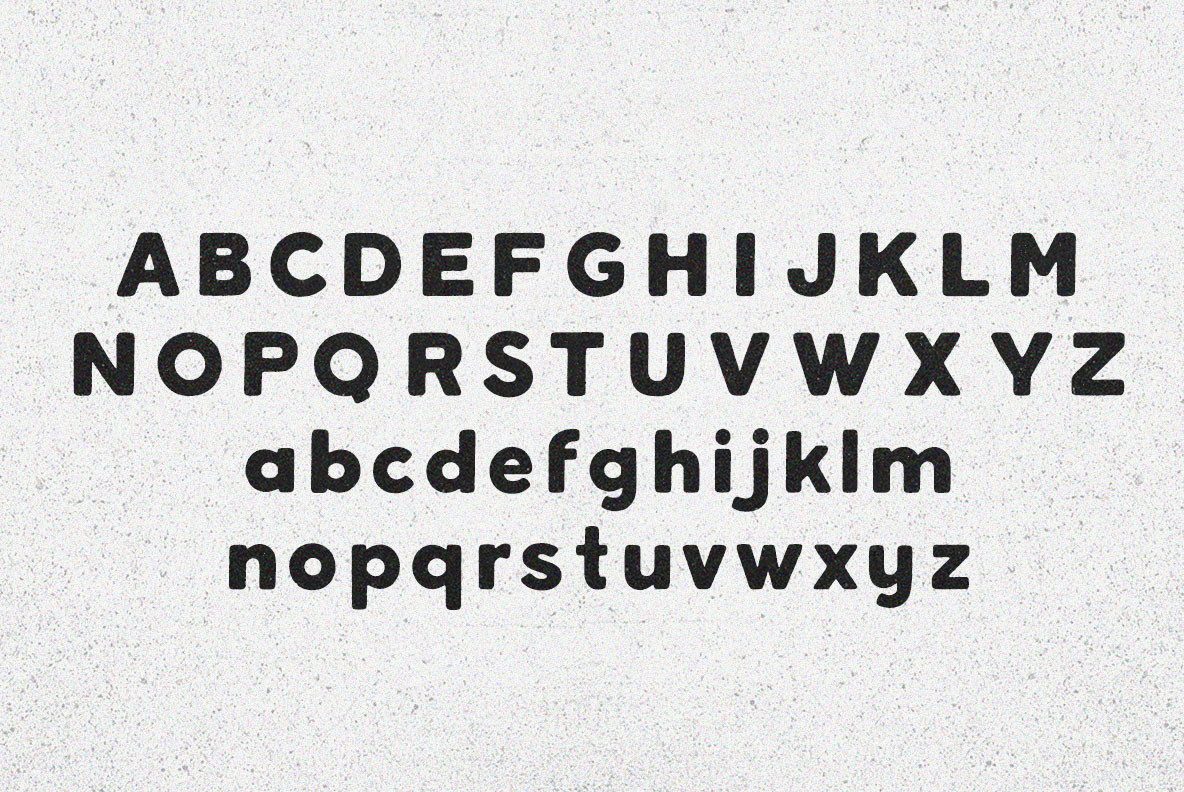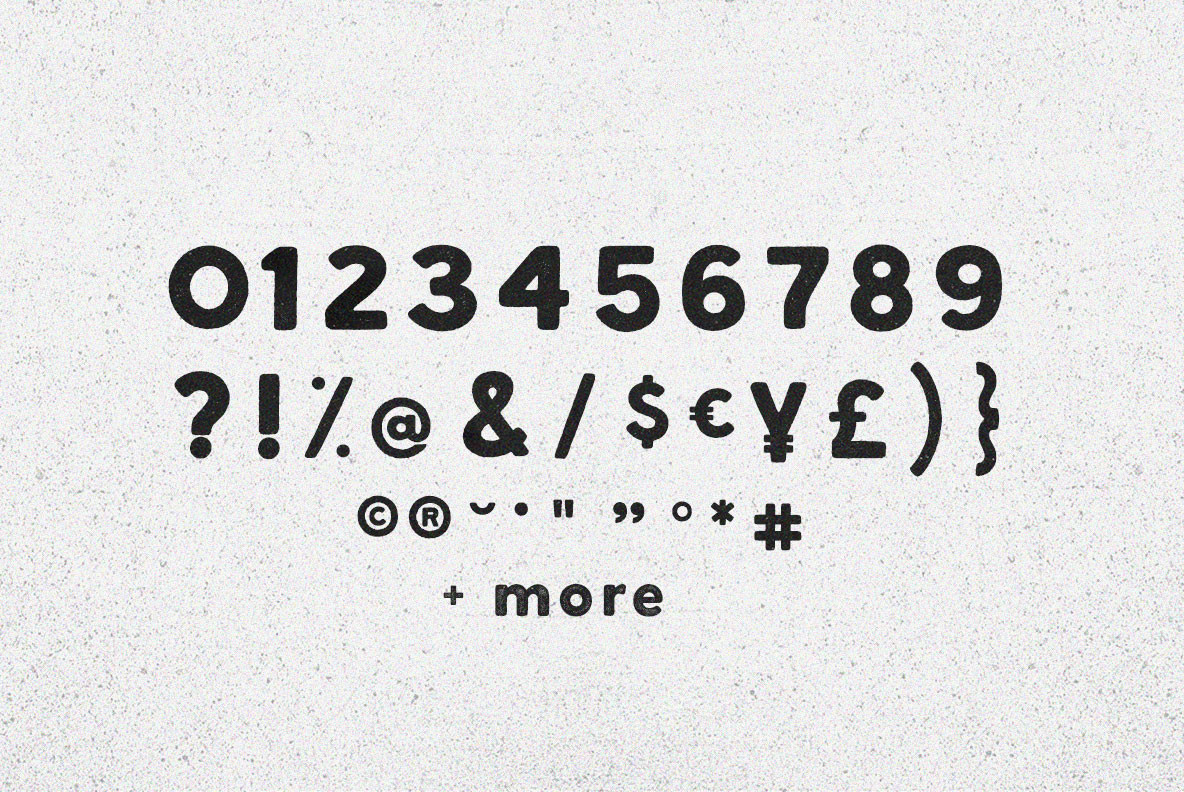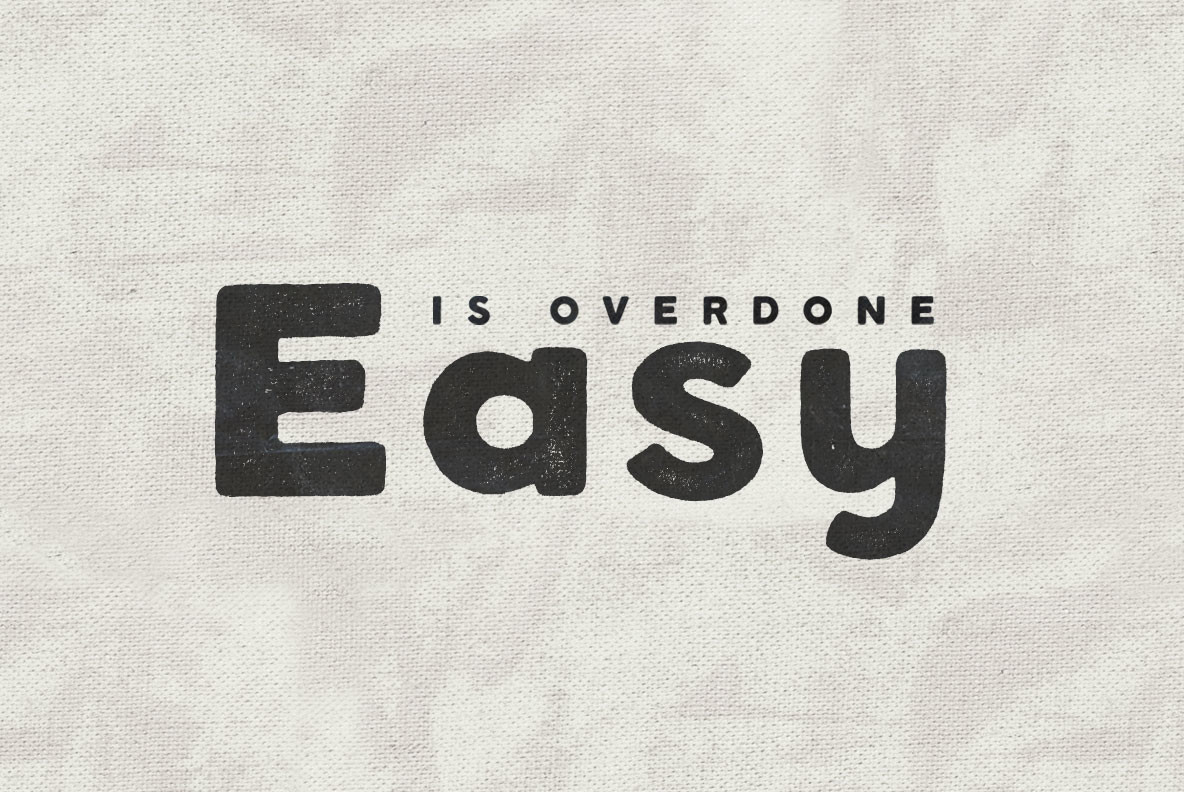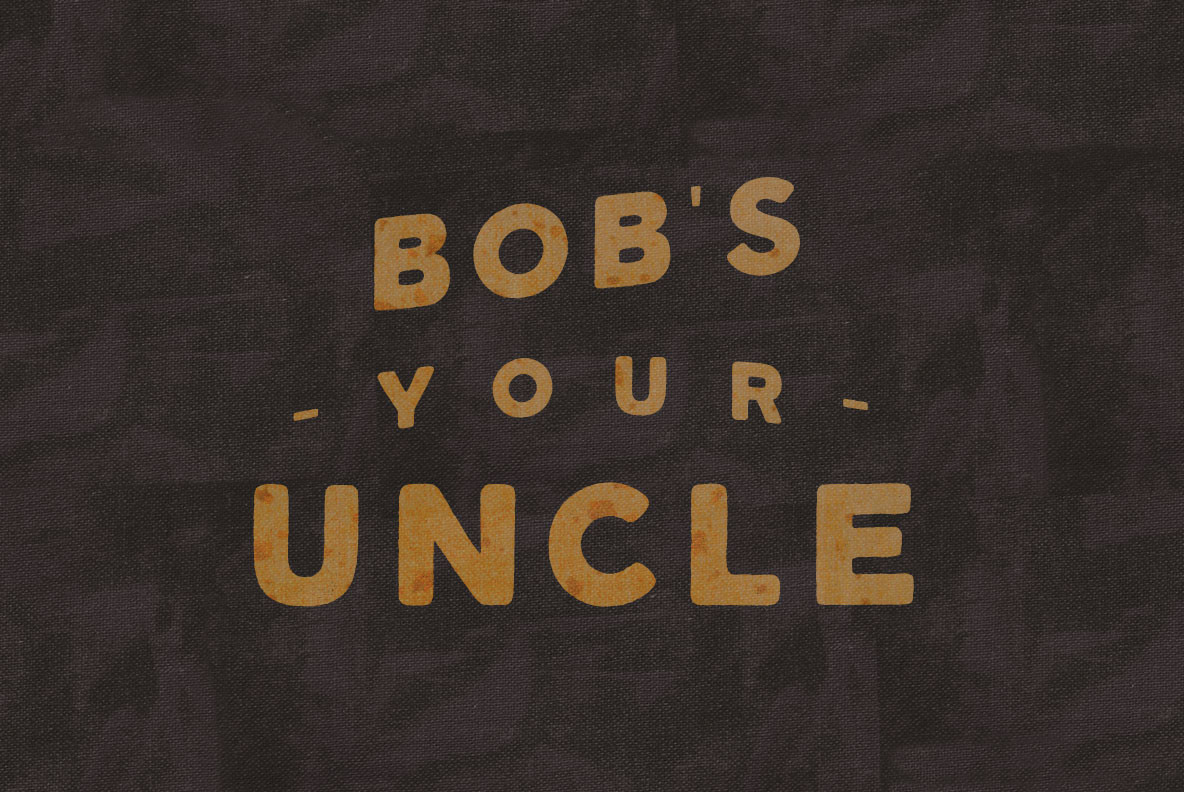
City Work 1
Jackhammers and backup beepers. An inharmonious din. A rumble and a clatter. Night shifts and traffic tie-ups. Garbage men, sewer workers, road crews, and cops. Civil servants in civic servitude. Work the city, make the City Work.